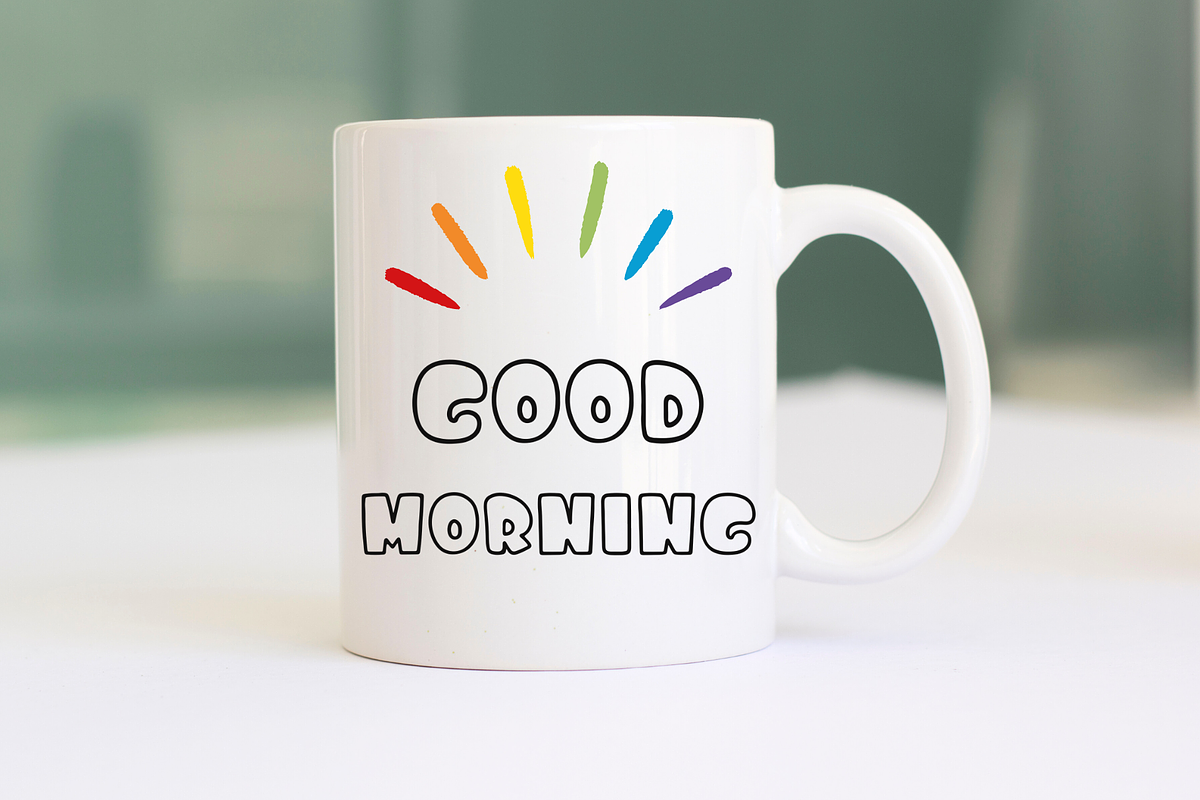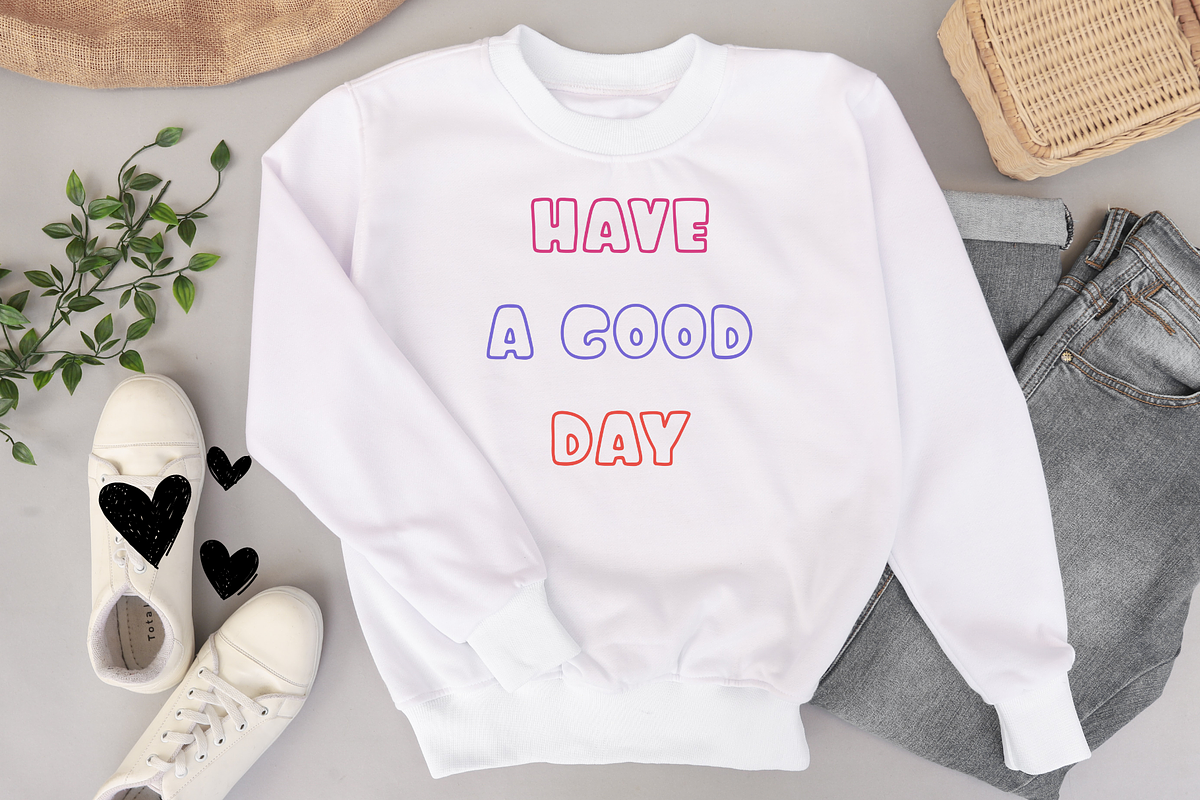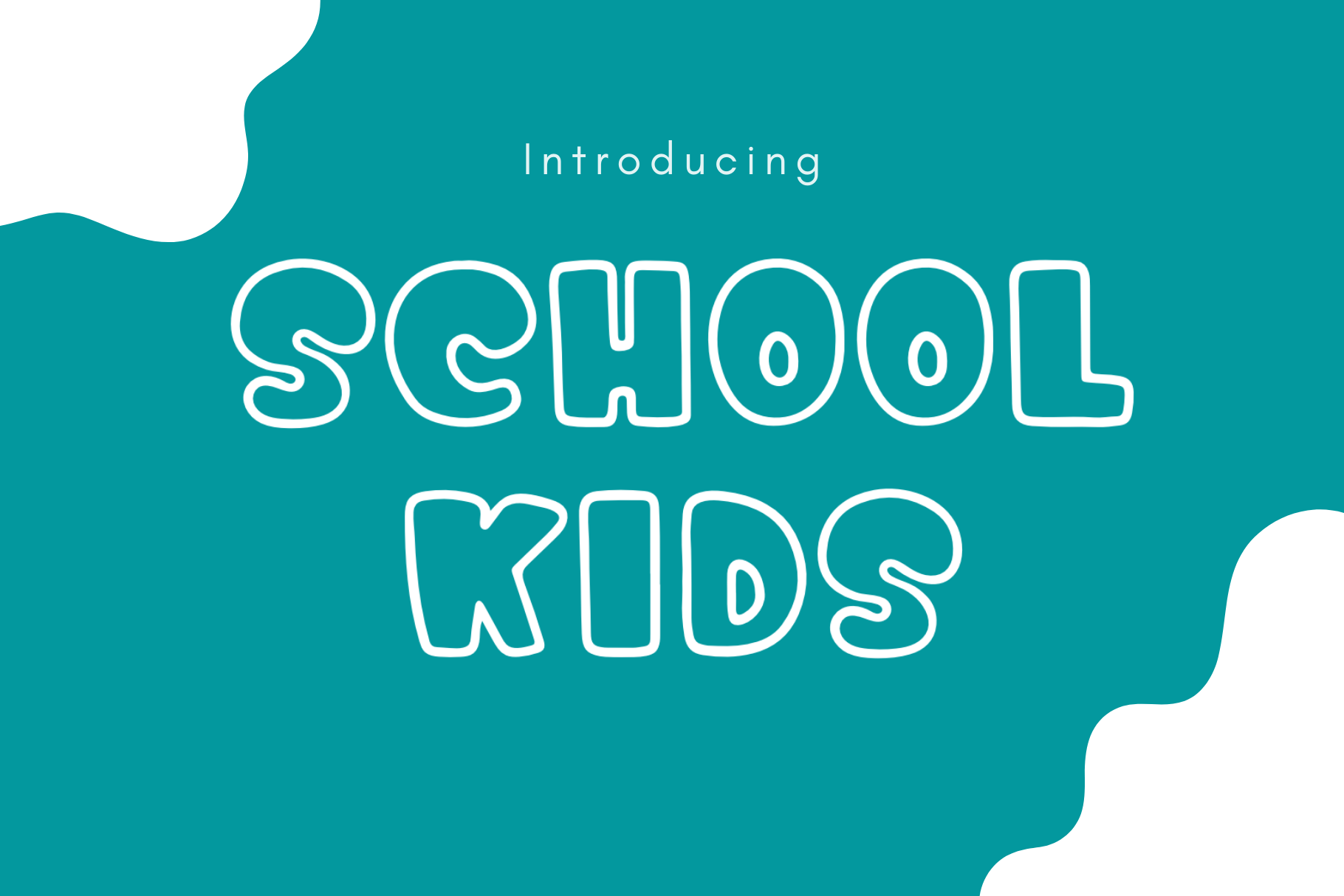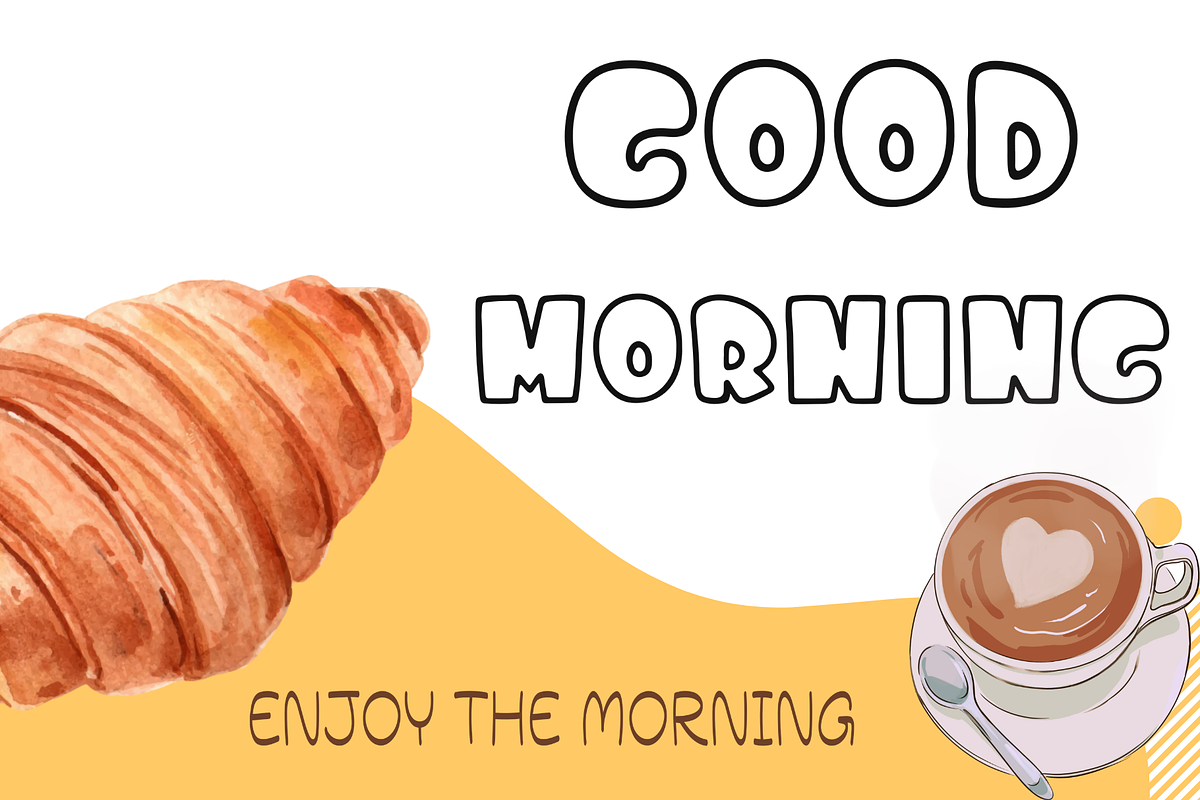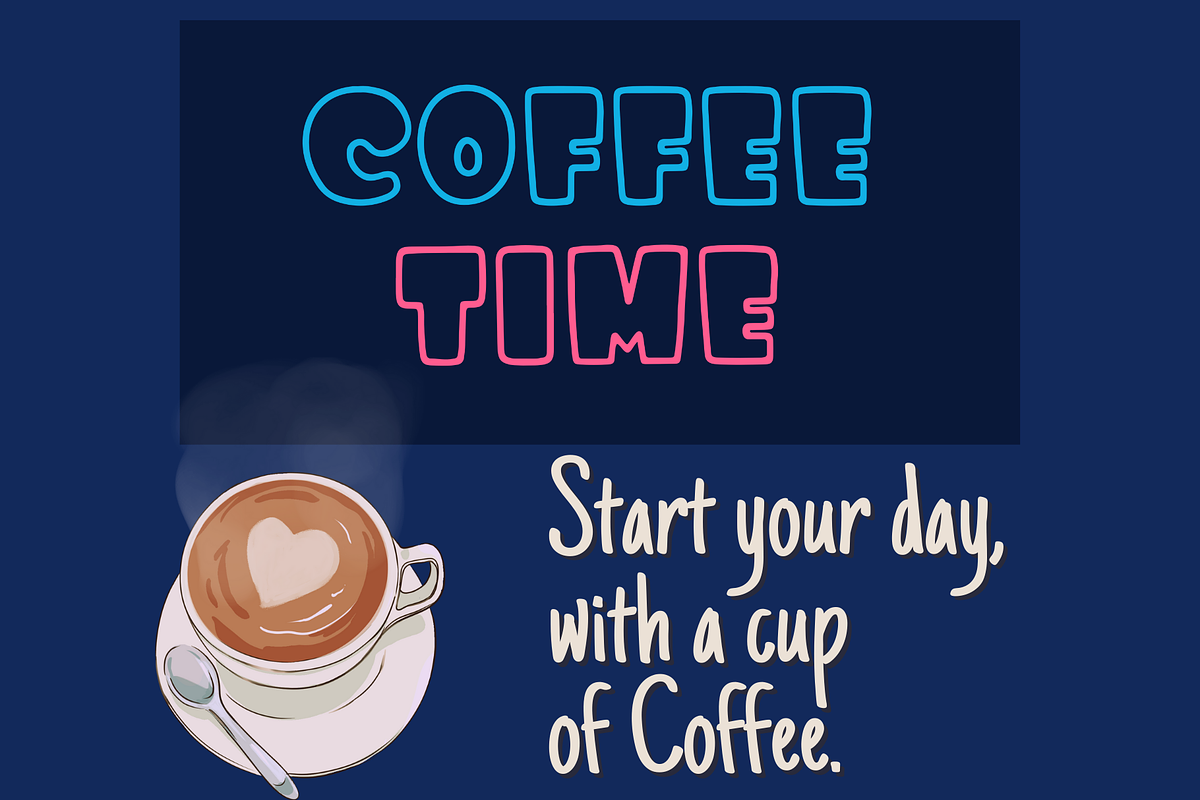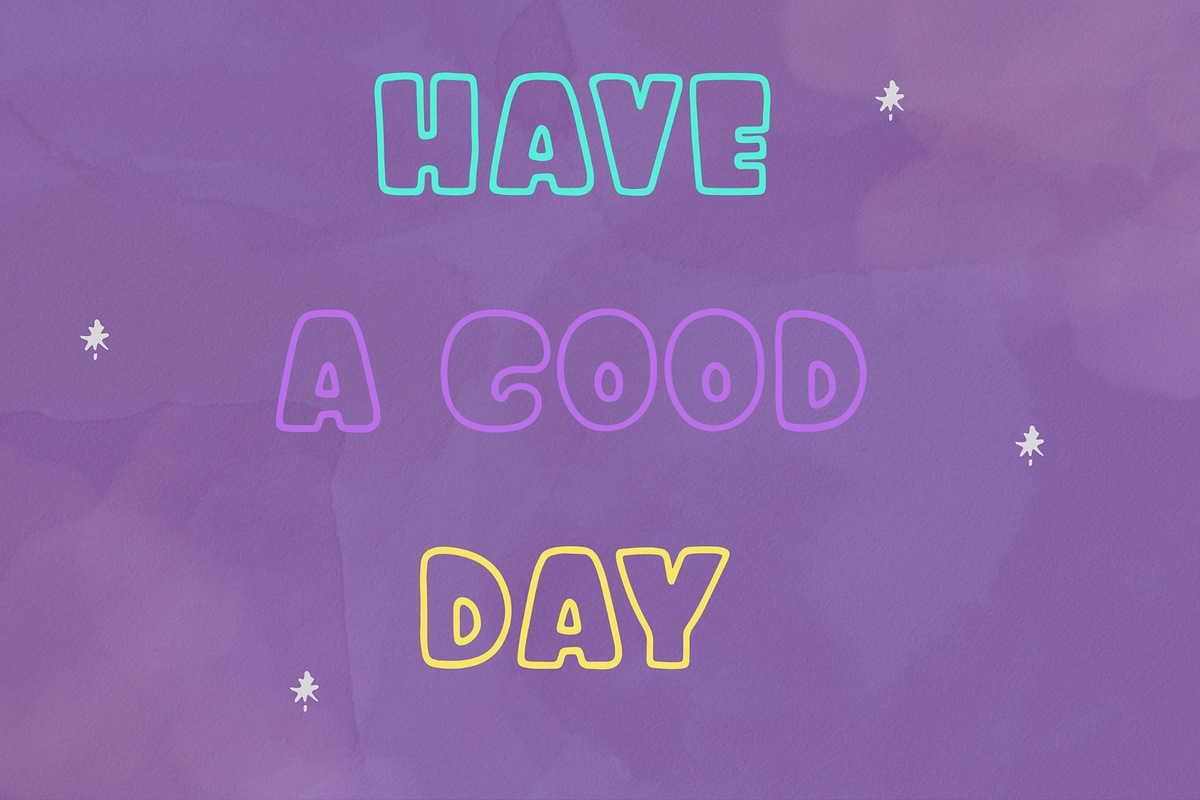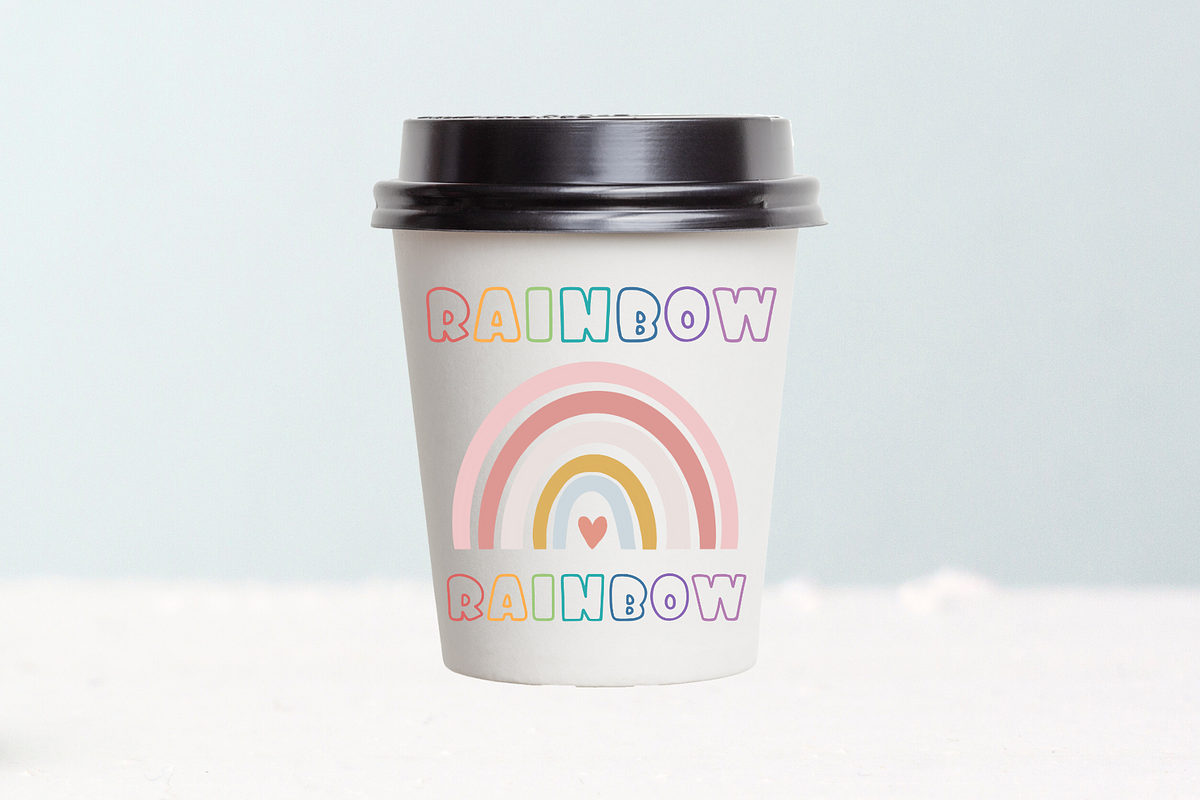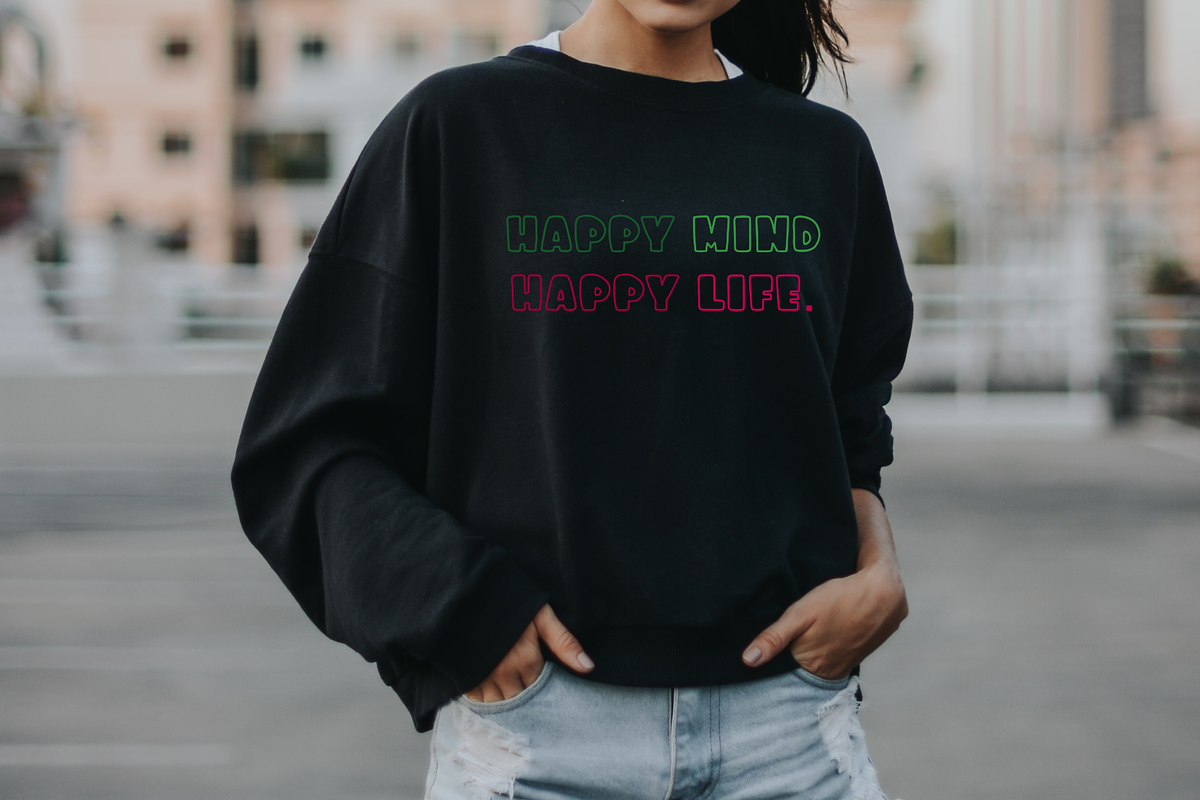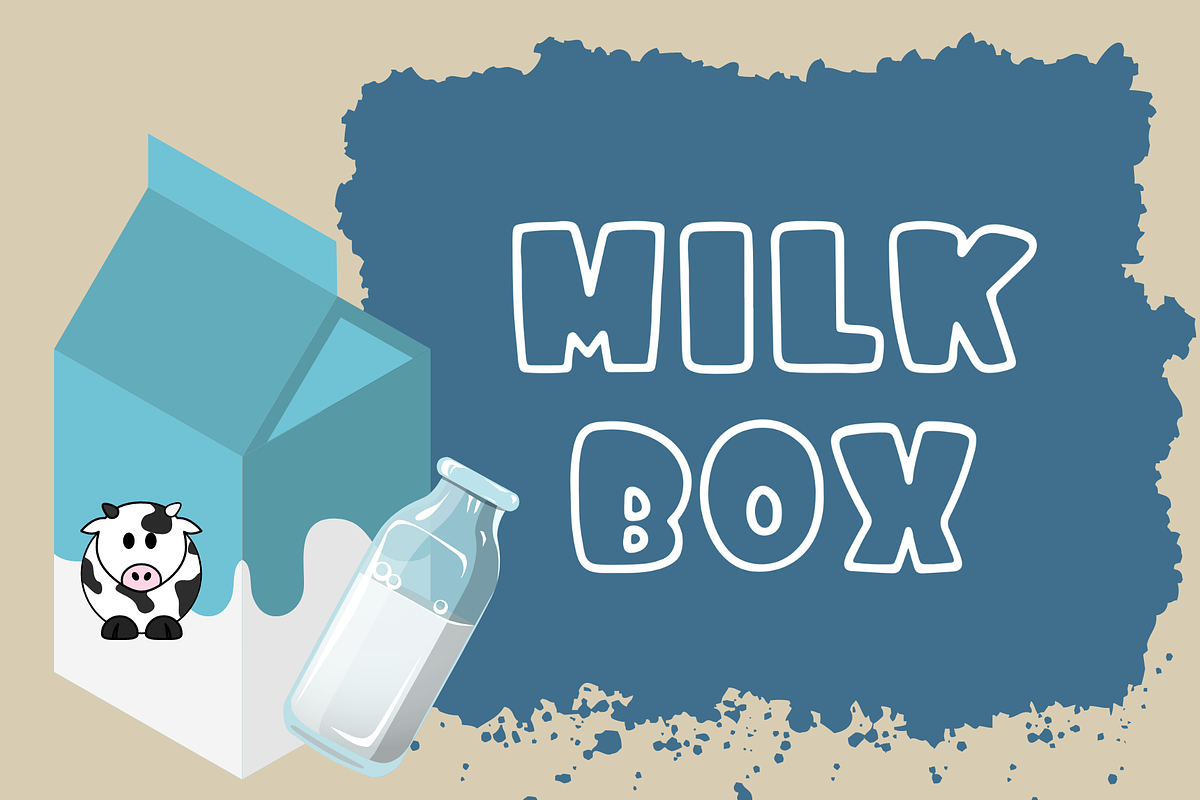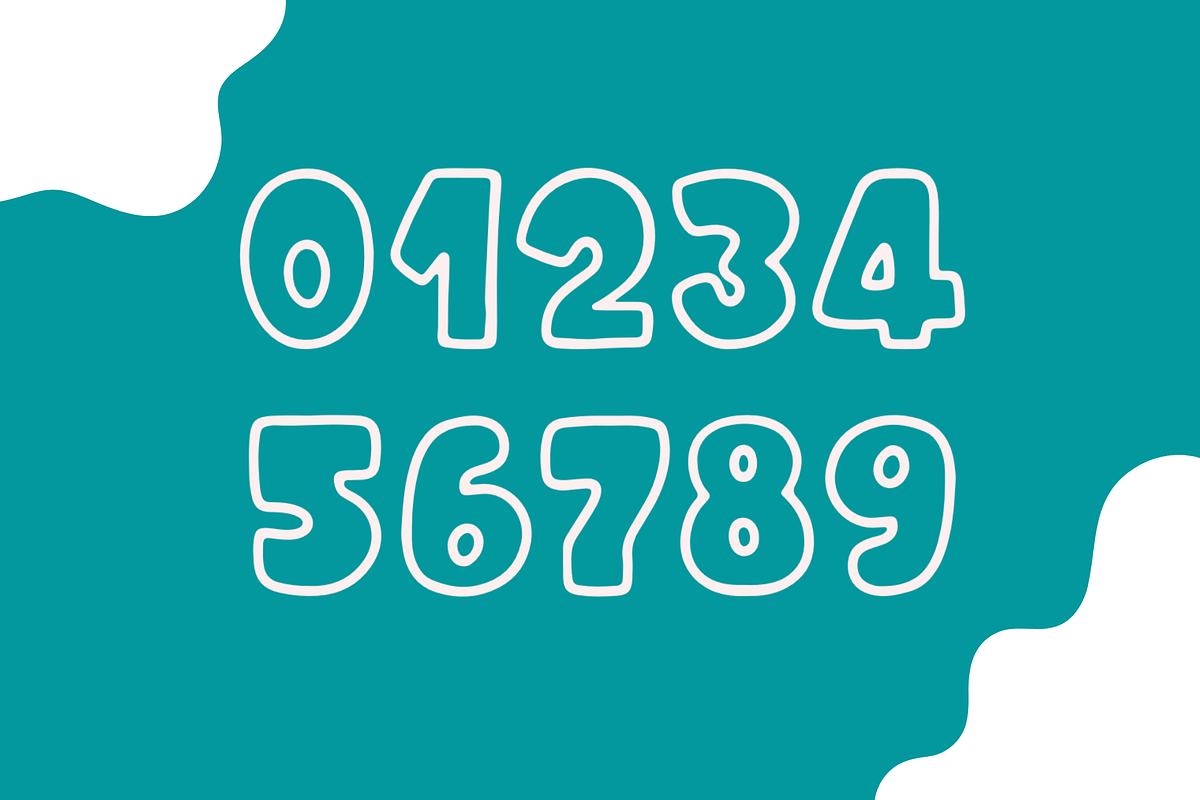
School Kids Font
School Kids is a jolly and incredibly charming display font. Designed in a playful and adorable style, this font will be awesome for your colorful child-relate projects, party decorations, or anything that needs a friendly touch. This font makes it easy to present every artwork!